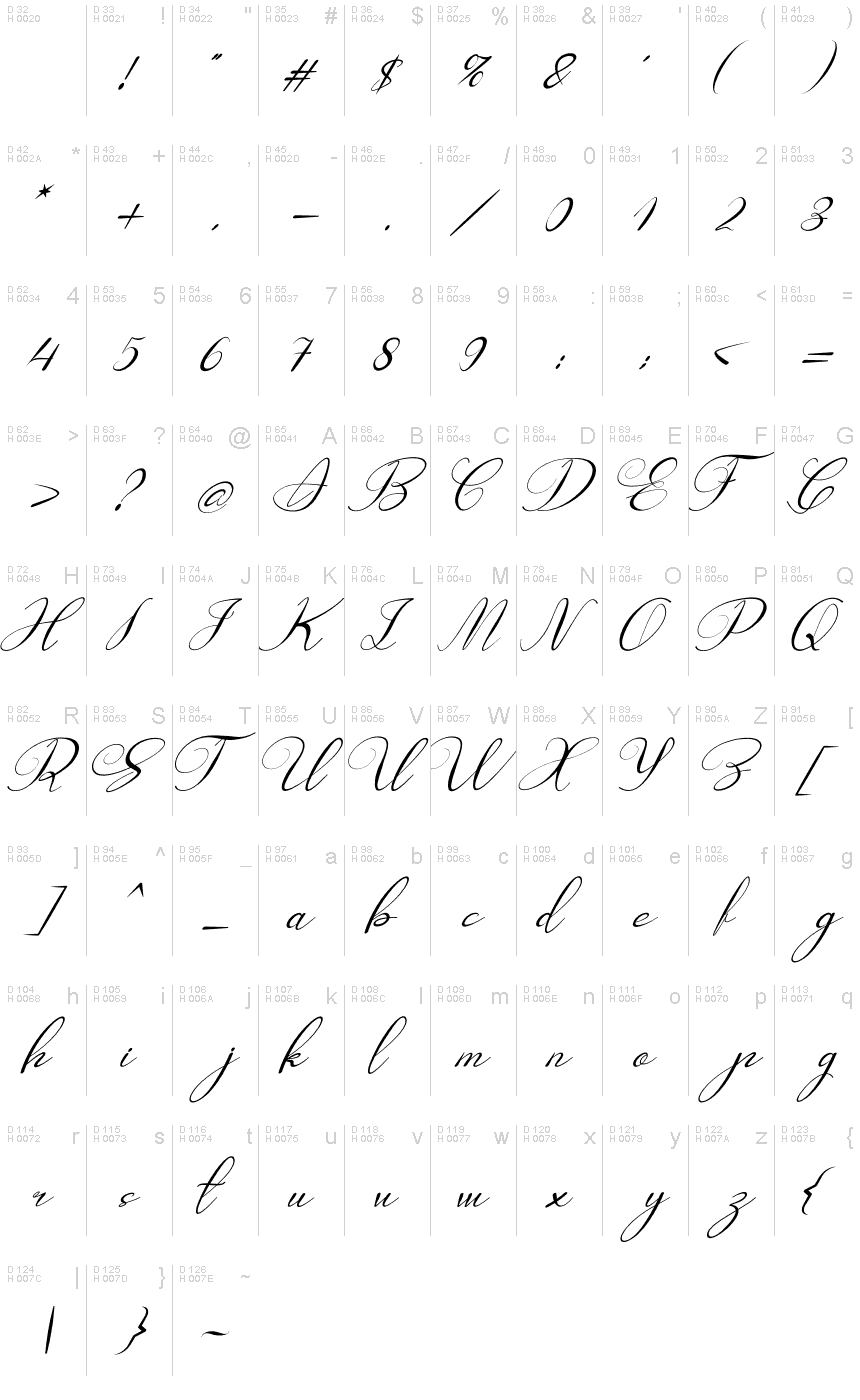
As Long As Italic
As Long As Italic is a stunning calligraphy font designed by Design Vector10. Its light weight and graceful strokes give any project an elegant and sophisticated touch. This font is perfect for wedding invitations, greeting cards, branding materials, and even social media graphics. As Long As Italic's italicized nature adds a romantic element to any design project, making it suitable for anything from love letters to business cards. The flowing script of this typeface is sure to capture the attention of anyone who sees it, making As Long As Italic the perfect choice for those looking to add a touch of class and elegance to their work.